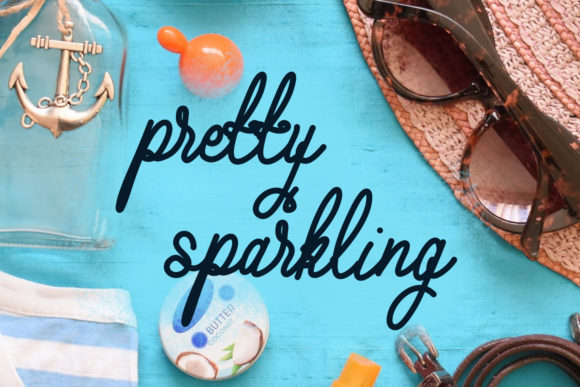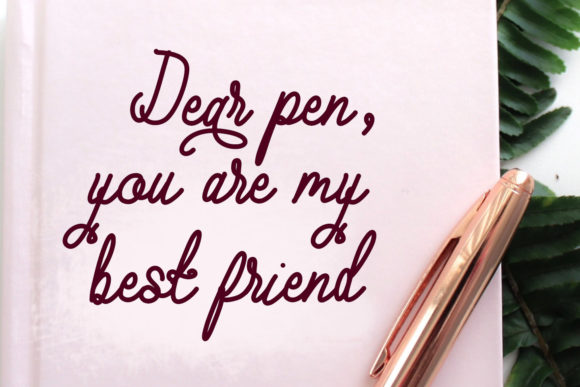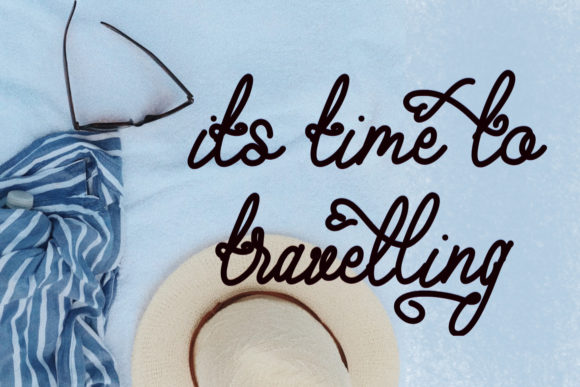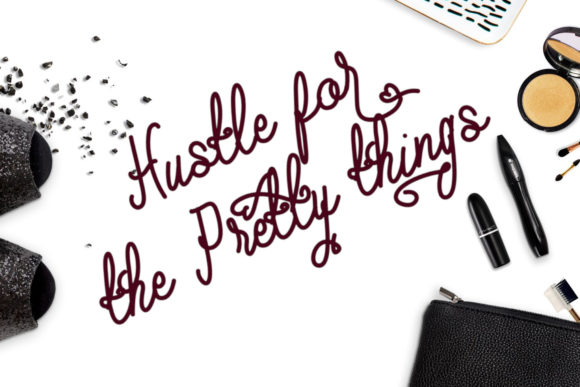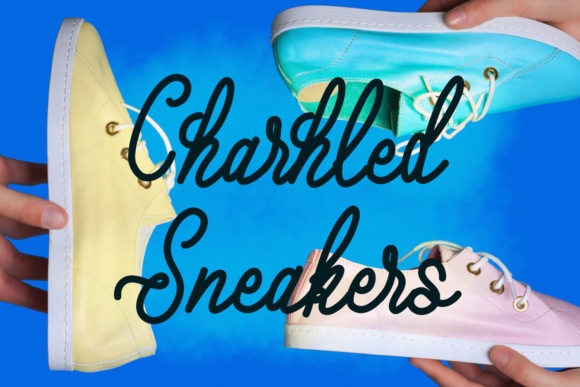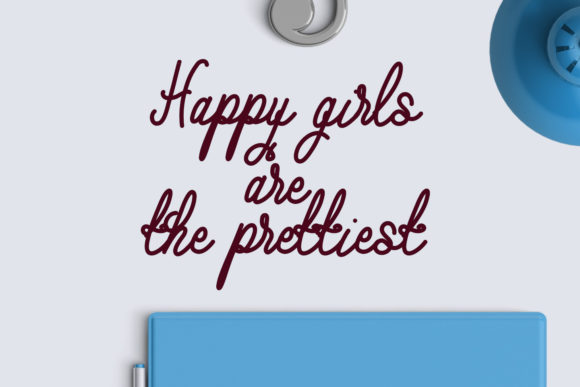
Introduction to Lollipolly Font
Have you ever been stuck in a design rut, scrolling through social media, and then suddenly come across a beautifully crafted piece of design that makes your heart skip a beat? For me, that moment happened when I stumbled upon a stunning wedding invitation featuring the Lollipolly Font. Its elegant, handwritten style instantly caught my attention and sparked a desire to learn more about this magical font.
As a designer, I know how valuable it is to have access to high-quality design resources that can elevate our creative projects. The Lollipolly Font is one such treasure, offering a transparent background that makes it easy to use and manipulate in various design applications. Whether you’re working on a beautiful stationary art piece, a wedding invitation, or a social media post, this font is sure to add a touch of authenticity and elegance to your work.
Key Features of Lollipolly Font
- High-quality design resource perfect for creative projects
- Transparent background for seamless integration into designs
- Customizable with advanced font editing software
- Includes a wide range of glyphs and characters for versatility
- Resolution-independent for optimal display on various devices
- Supports multiple languages for global design applications
Honest Review: Lollipolly Font
I recently had the chance to work with the Lollipolly Font, and I must say it’s a lovely addition to any creative project. This high-quality font is perfect for designers looking for a unique and playful touch.
One of the standout features of the Lollipolly Font is its transparent background, making it incredibly easy to use in a variety of design settings. The font itself is highly customizable, allowing designers to adjust the size, color, and style to fit their specific needs.
What works well: ✨ Easy to use, high-quality, and free download. These factors make the Lollipolly Font an excellent design resource for both personal and professional projects.
What doesn’t work well: ⚠️ Limited character set, which can be a drawback for designers working on longer texts. Additionally, the font may not be suitable for formal or professional settings due to its playful nature.
Overall, I’m quite impressed with the Lollipolly Font. It’s a great design resource for creative projects, and its unique style is sure to add a touch of personality to any design. If you’re looking for a high-quality, free font, the Lollipolly Font is definitely worth checking out.
- Customizable
- Limited character set
Tips for Getting the Most Out of Lollipolly Font
Experiment with different font sizes, colors, and styles to create a unique visual effect. Use the font in combination with other design elements to create a cohesive and engaging design. Don’t be afraid to try new things and push the boundaries of what’s possible with the Lollipolly Font.
Common Use Cases for Lollipolly Font
The Lollipolly Font is perfect for creating eye-catching headings, titles, and labels. It’s also great for designing social media graphics, blog posts, and marketing materials. With its unique and playful style, the Lollipolly Font is a must-have design resource for any creative project.